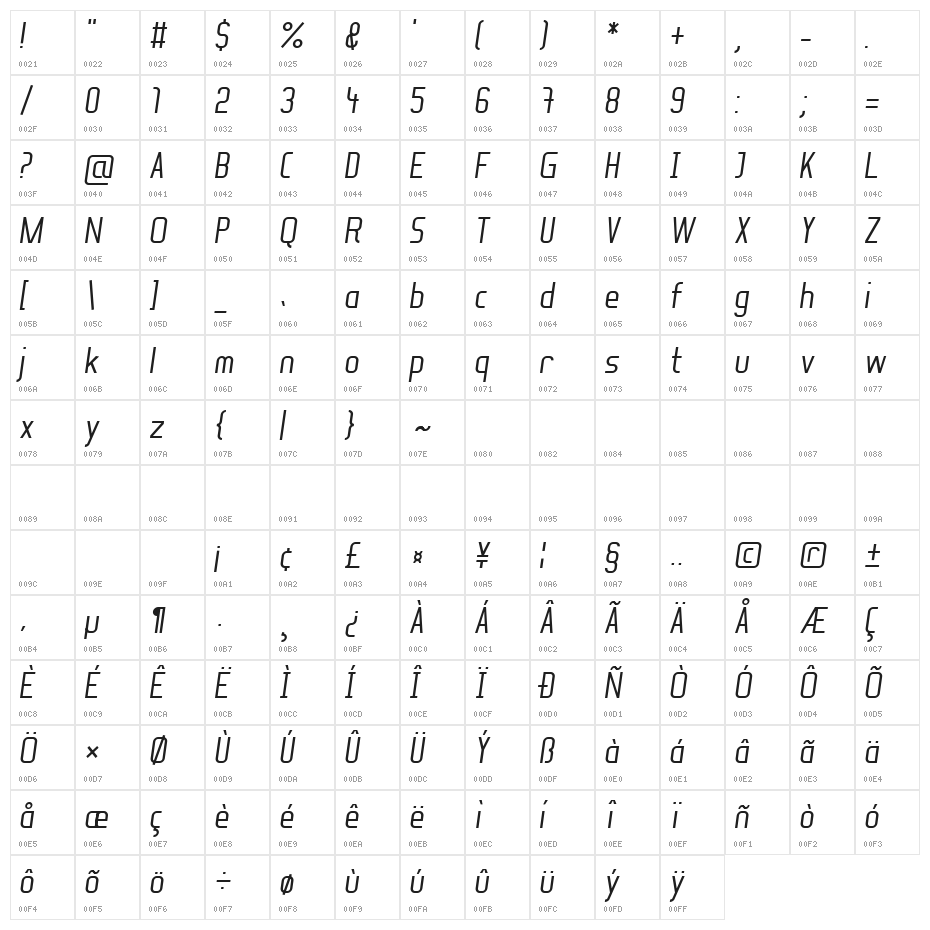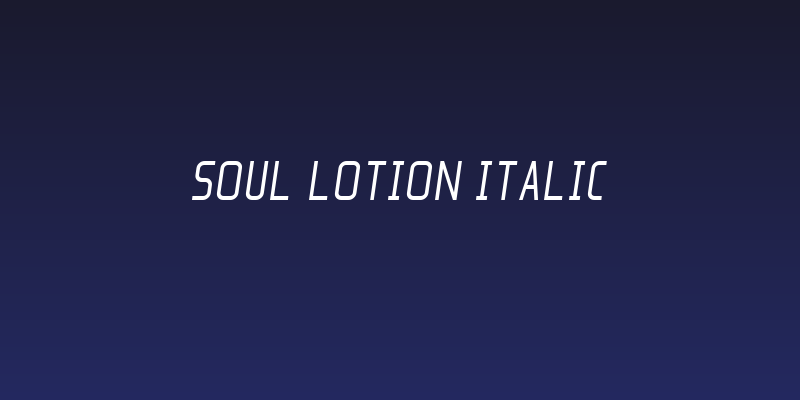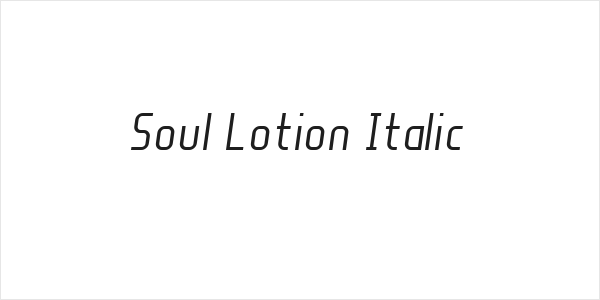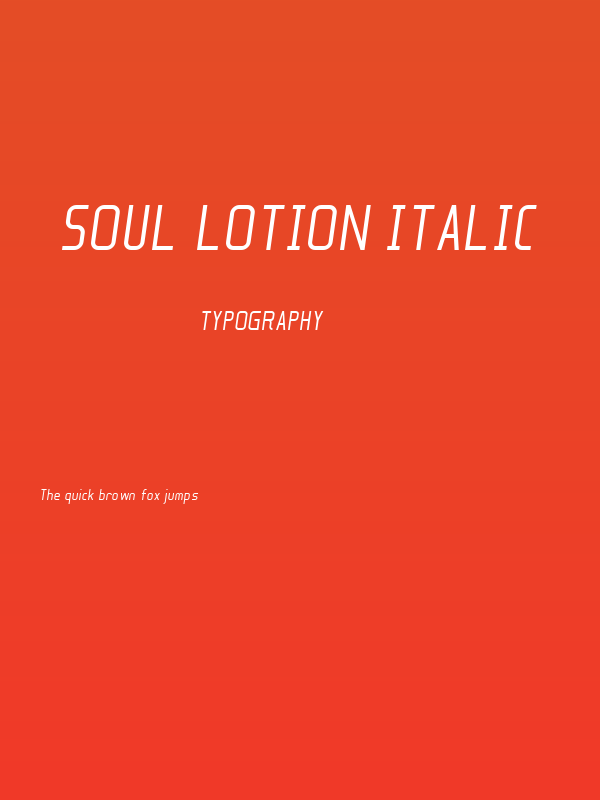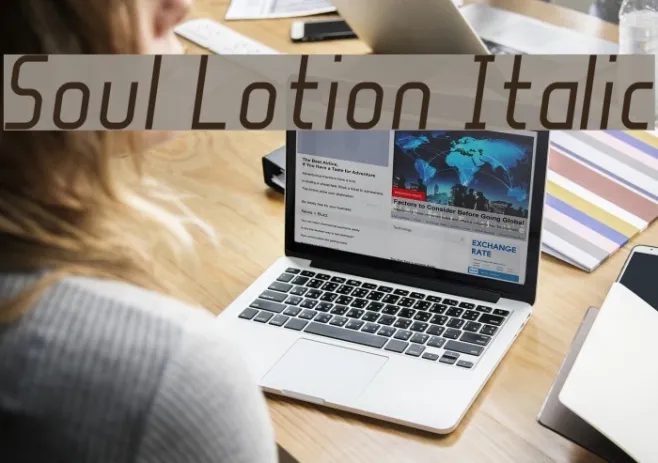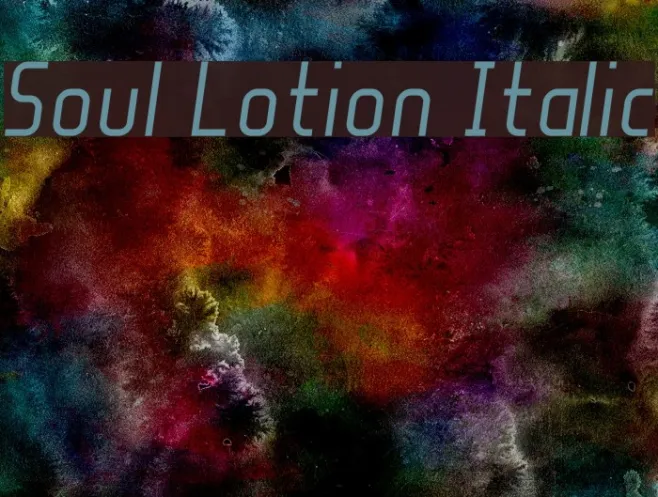
Soul Lotion Italic Font
Soul Lotion Italic Description
This font features a sleek, modern design with a slight italic slant, giving it a dynamic and forward-moving appearance. The characters are elongated with a consistent stroke width, providing a clean and streamlined look. The uppercase and lowercase letters maintain a uniform style, while the numerals and special characters are designed to complement the overall aesthetic. The font's geometric structure and minimalistic approach make it versatile for various design applications.
| Proposed Projects | Ideal for branding, advertising, and editorial design projects that require a contemporary and professional look. |